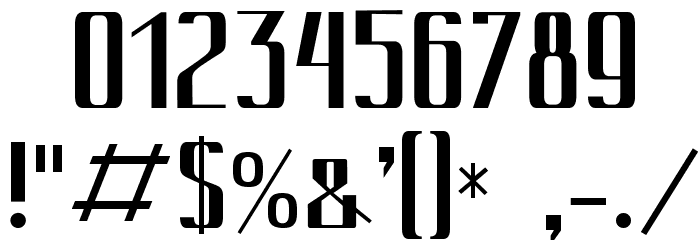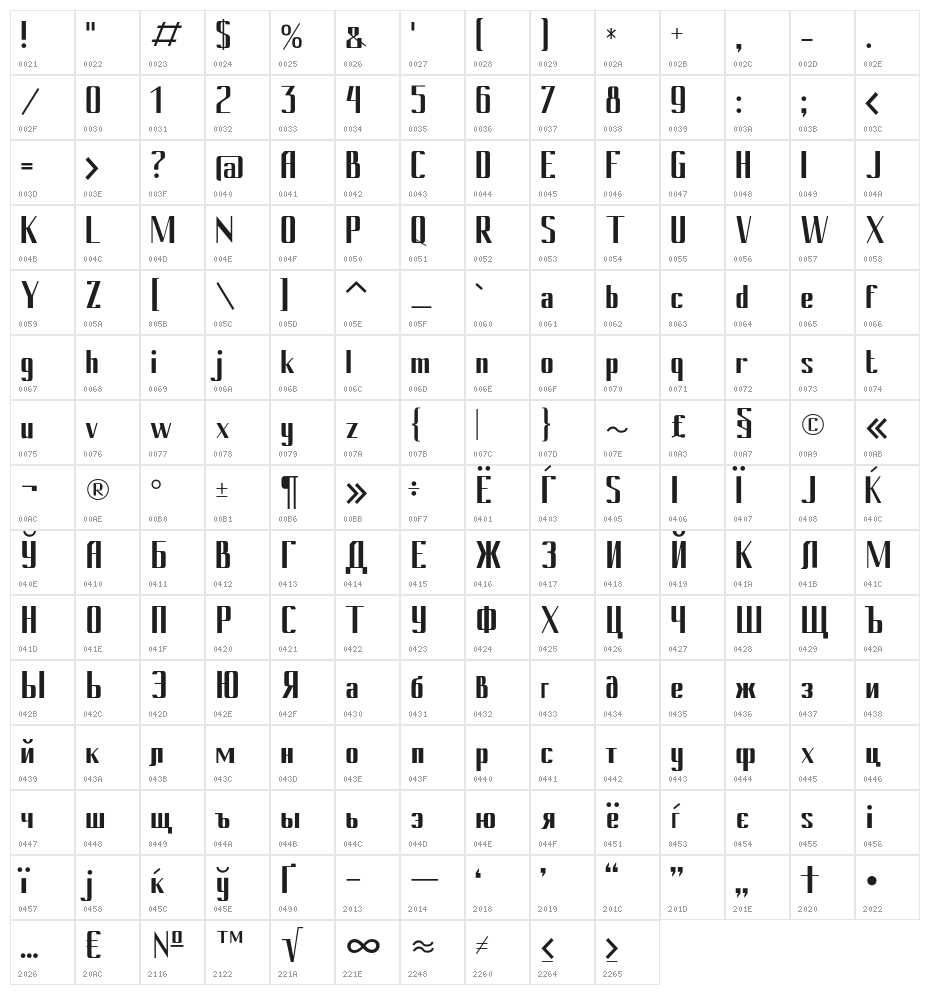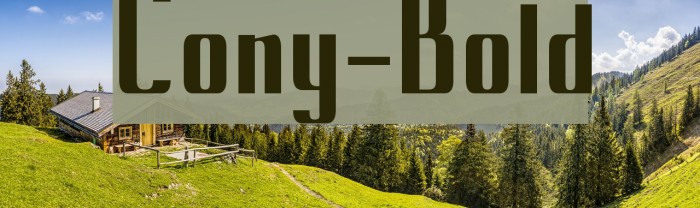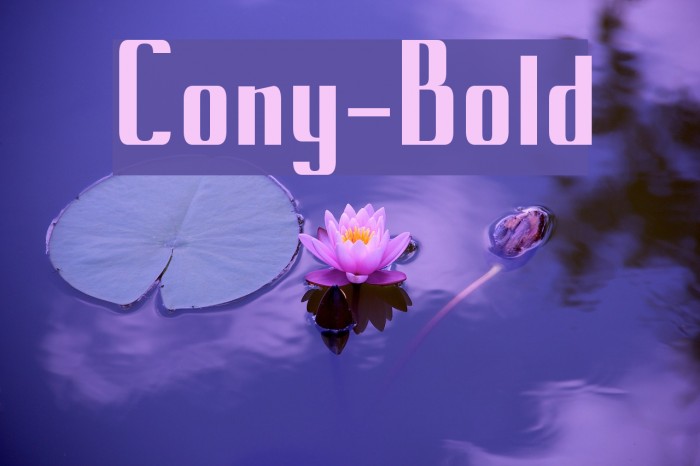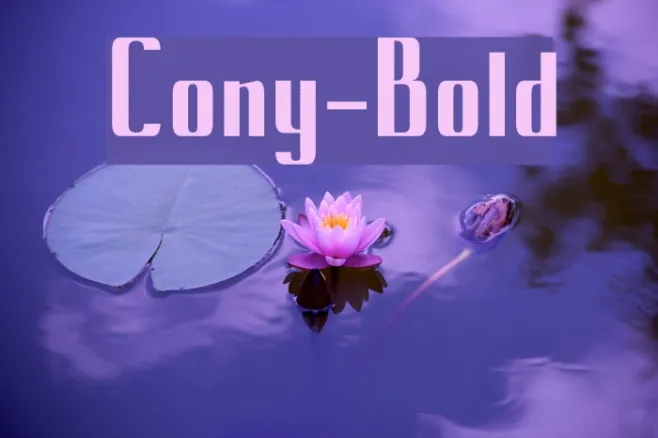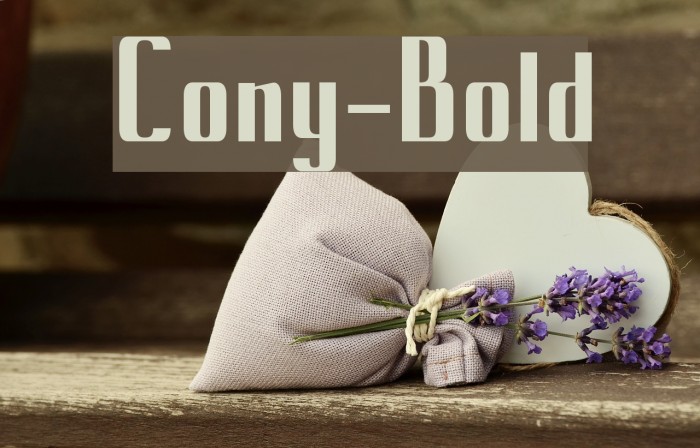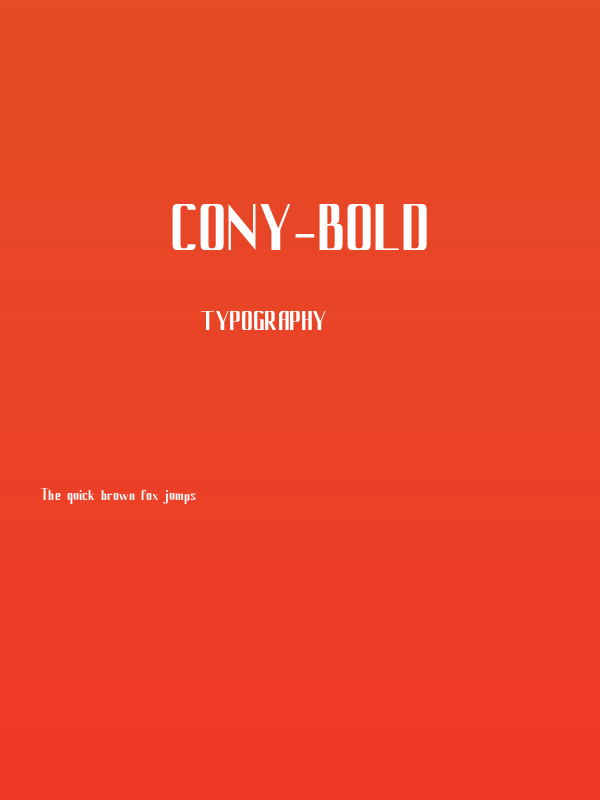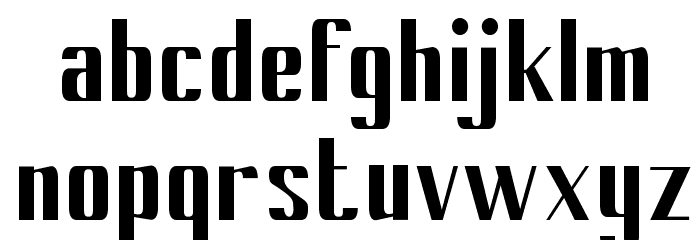
Cony-Bold Font
Cony-Bold Description
This font features a bold and striking design with a modern, geometric aesthetic. The uppercase letters are tall and narrow, with sharp angles and clean lines that give a sense of strength and precision. The lowercase letters maintain a consistent style, offering a cohesive look across different text sizes. Numbers and special characters are designed with the same attention to detail, ensuring readability and visual appeal. The overall style is contemporary, making it suitable for a variety of design applications where a bold statement is desired.
| Proposed Projects | Ideal for branding, posters, headlines, and any project requiring a bold, modern look. |